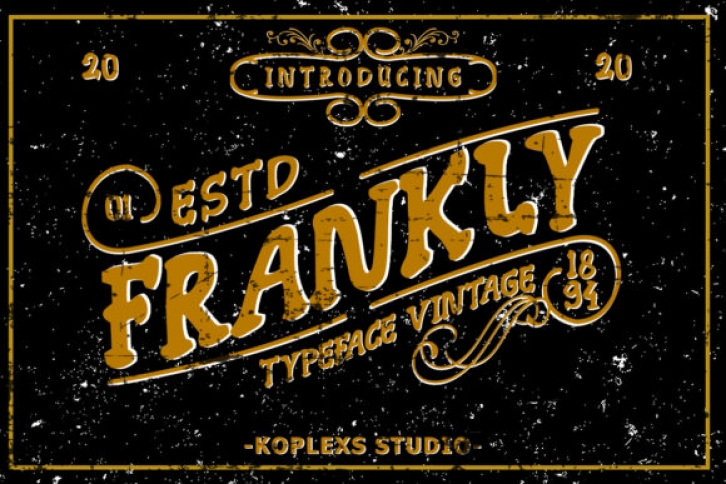
Frankly is a bold display font, carefully crafted to become a true favorite. Its casual charm makes it appear down to earth, easy to read and, ultimately, versatile as vintage. This font will look amazing in any context, whether it’s used on a background, logo or as a standalone title!